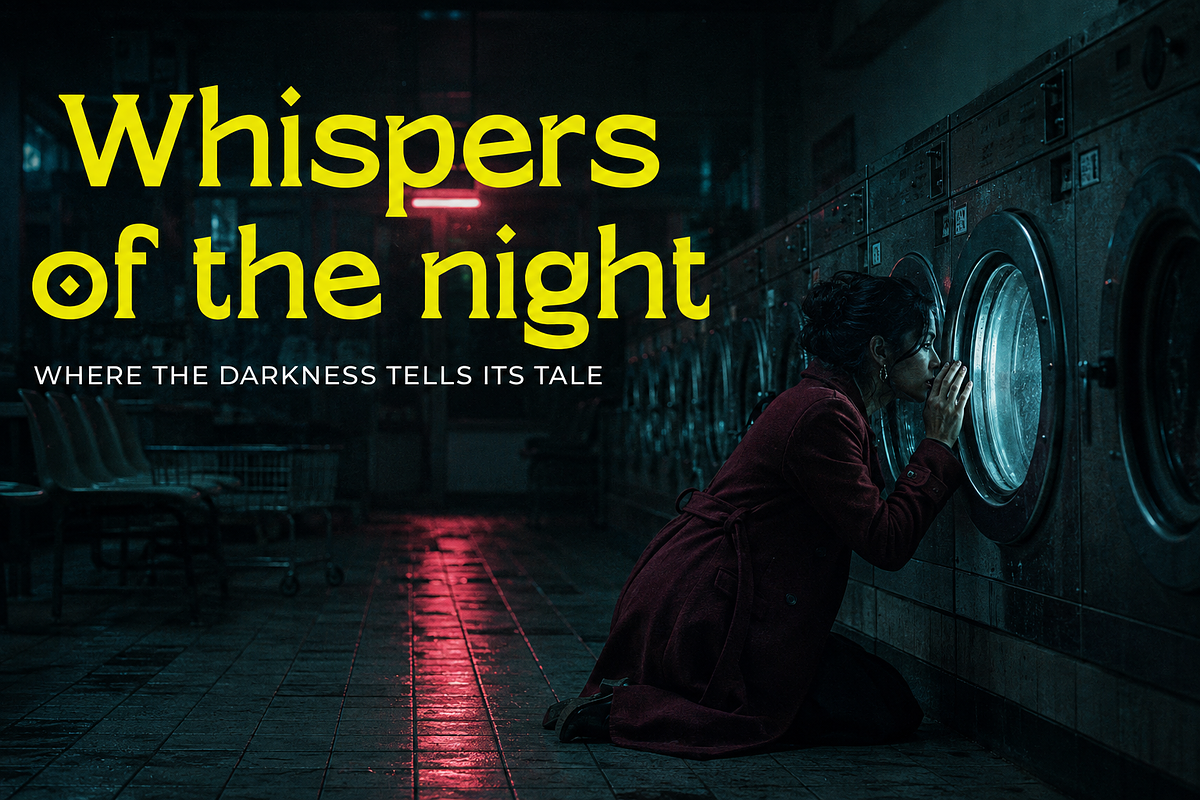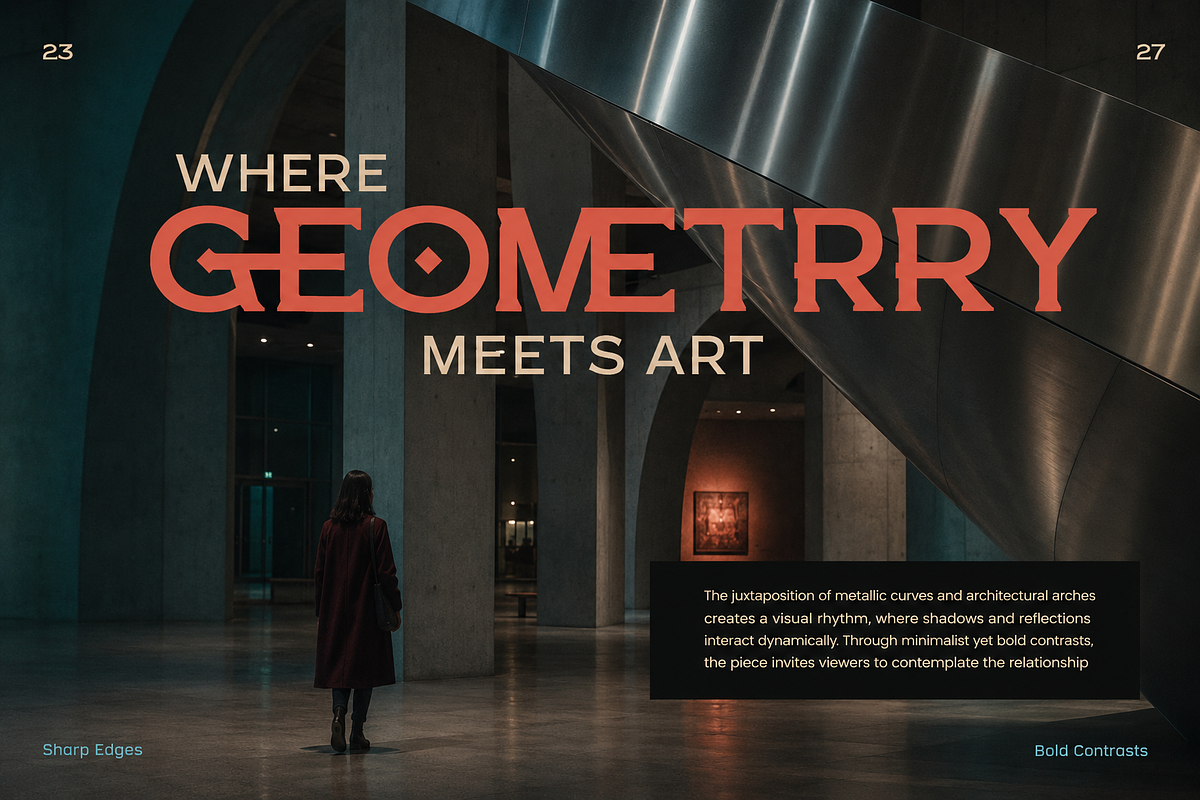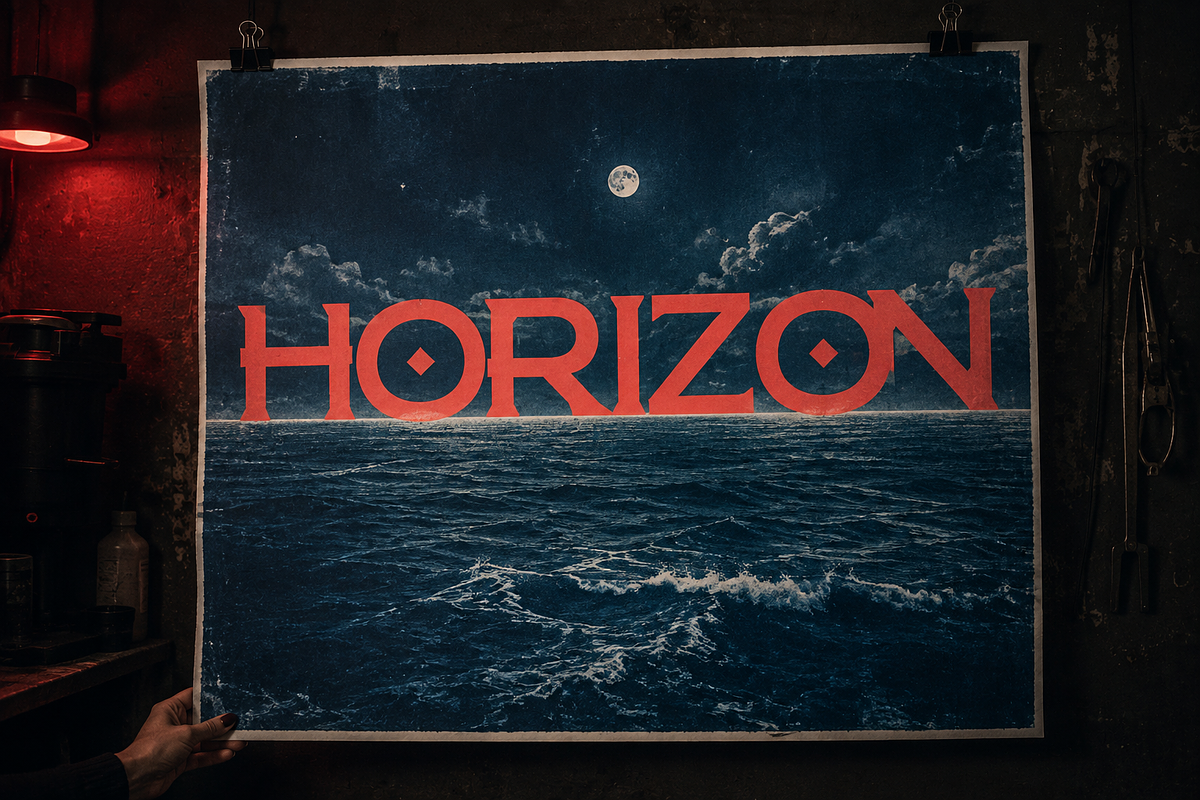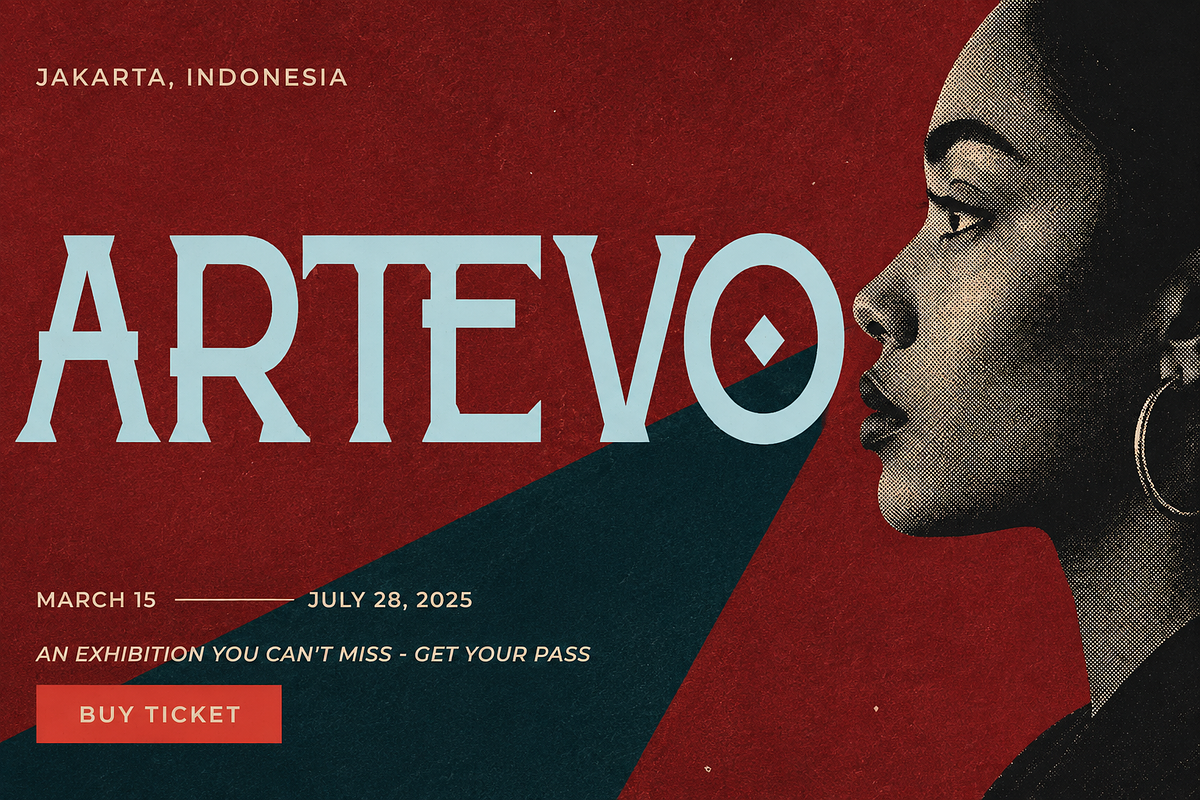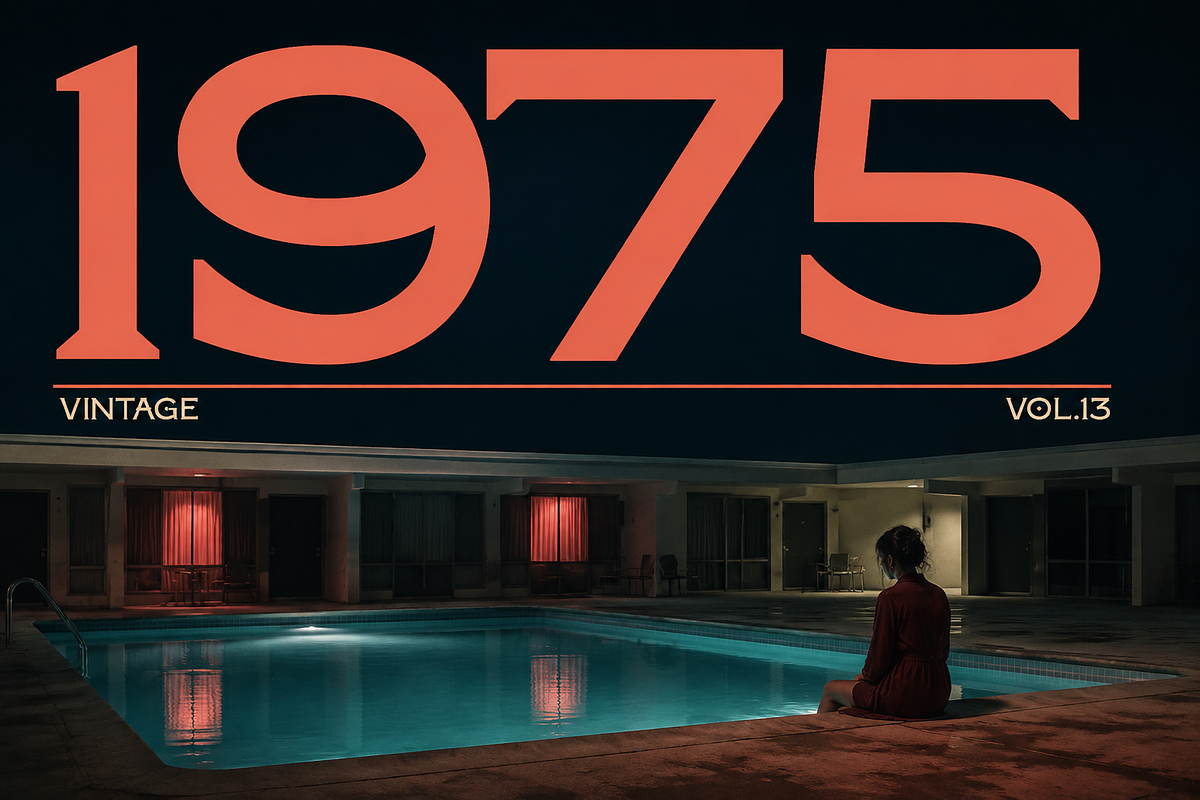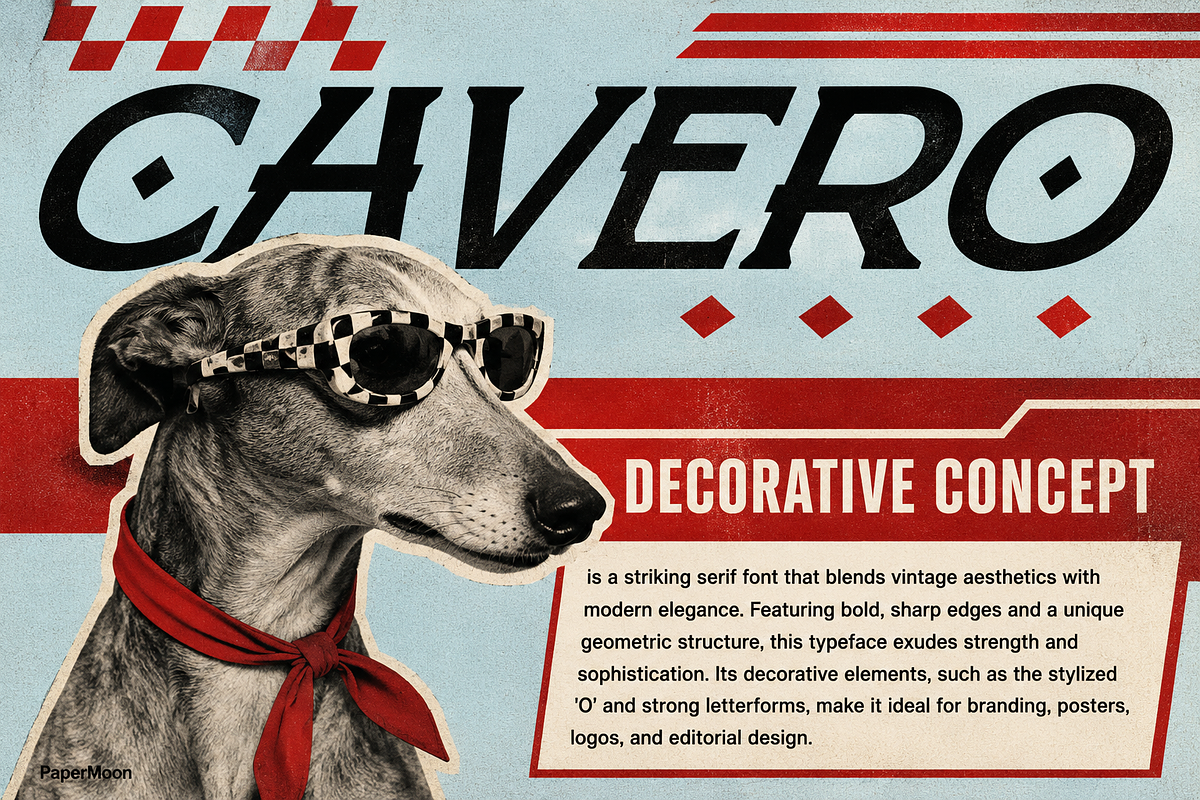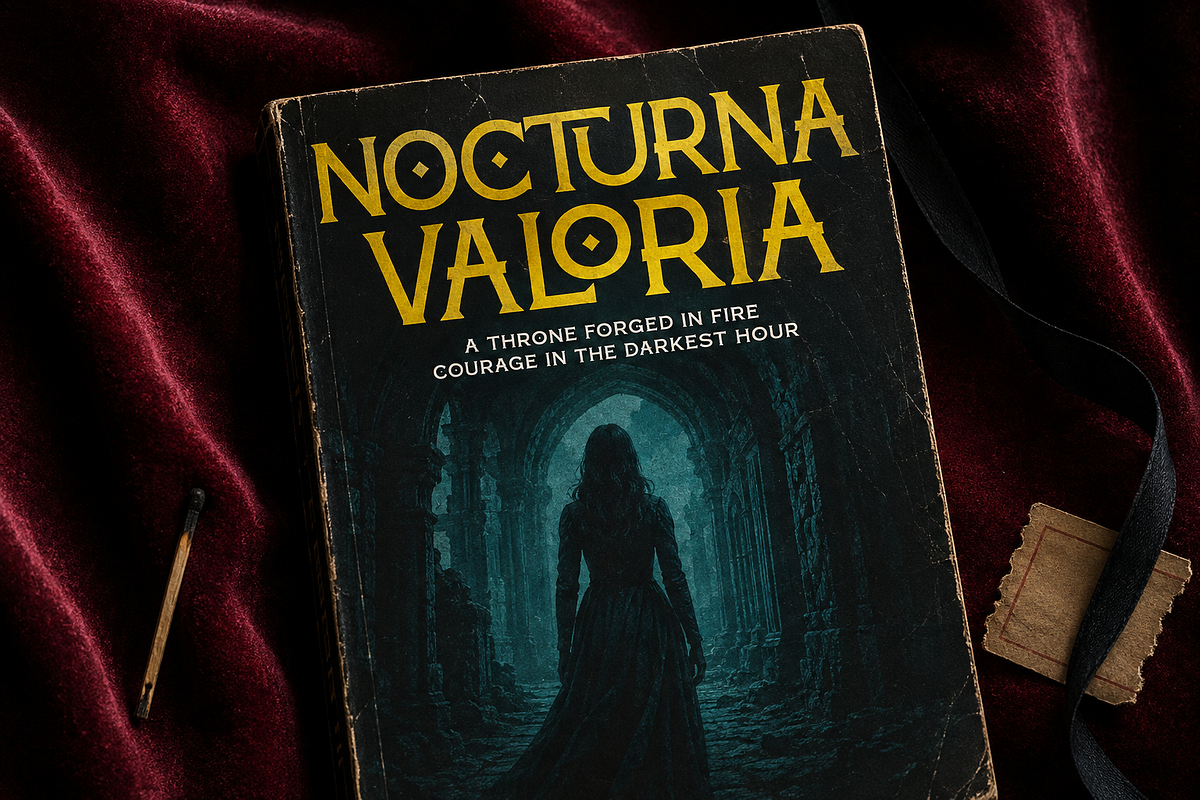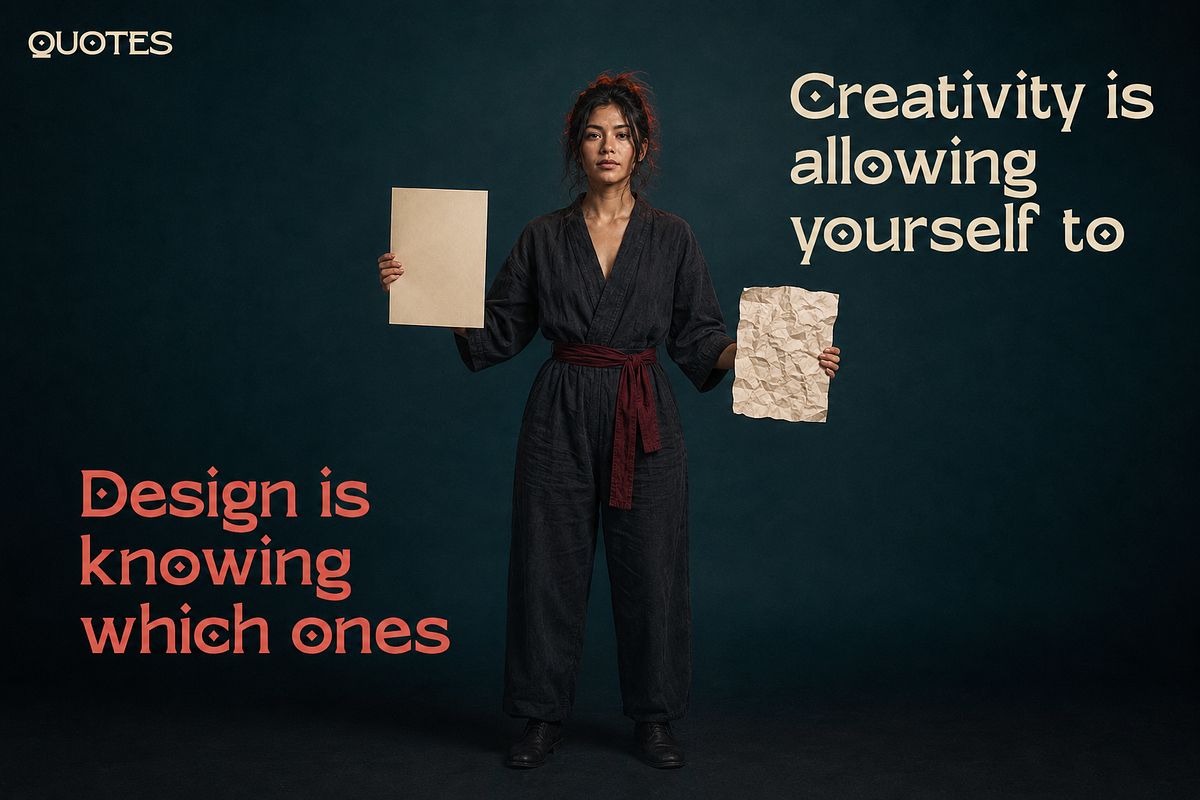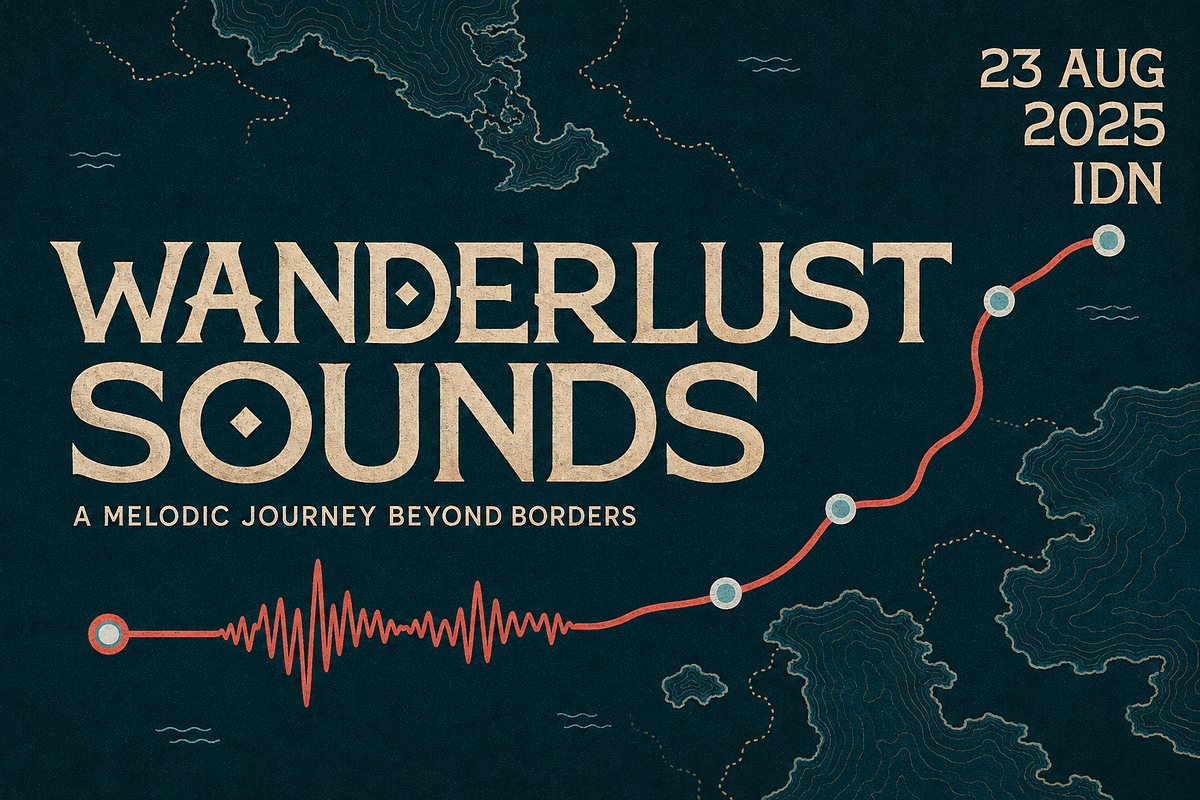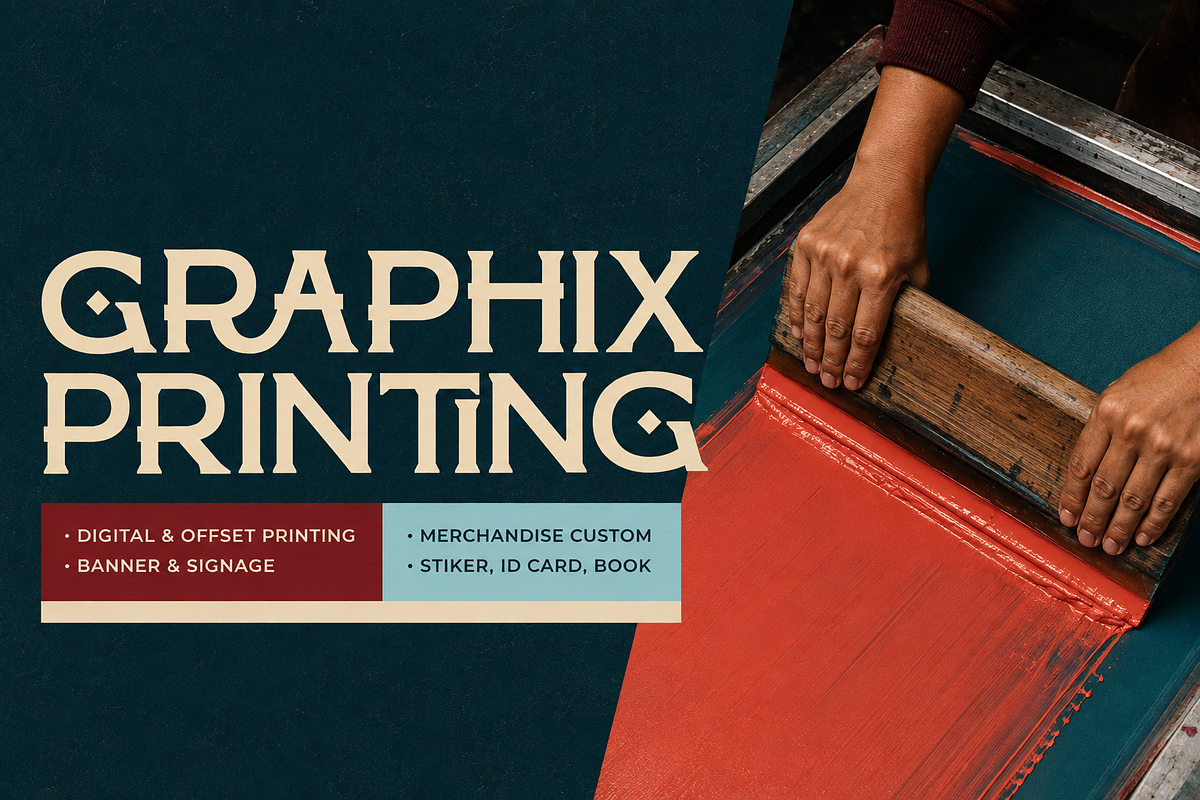
Cavero - High Contrast Serif Font
Cavero is a high contrast decorative serif with real nerve. Sharp edges, bold geometry, and artistic curves collide in a typeface that feels retro and refreshingly modern - an elegant font built for luxury branding, editorial layouts, and logos that refuse to blend in.
A display serif in the truest sense, Cavero pairs dramatic thick-thin contrast with unique letterforms and a generous set of stylish ligatures, so every headline, wordmark, and poster composition gets a custom, high-end finish straight out of the box. The carefully crafted 'O' and refined alternates add personality you won't find in stock typography.
Two expressive styles: Cavero Regular and Cavero Italic give you a confident upright voice plus a lively editorial slant for contrast and emphasis.
Stylish ligature set: A range of letter pairs knit together automatically for unique, magazine-quality compositions.
Designer alternates: Carefully crafted alternate forms, including a distinctive 'O', let you tailor each logo and headline.
Full character coverage: Uppercase and lowercase letters, numerals, comprehensive punctuation, and multilingual accent support.
Built for
Cavero was designed for luxury branding, editorial layouts and magazine covers, striking posters, logo and wordmark design, and high-end packaging. Fashion projects, creative layouts, and statement pieces are exactly where this typeface shines.
Make Cavero the centerpiece of your next editorial layout, logo, or luxury packaging design.